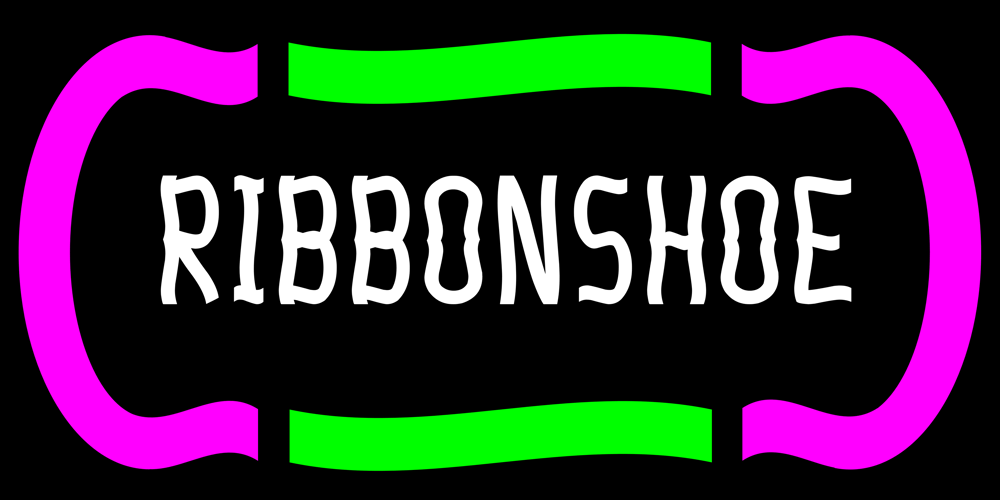
Ribbonshoe Font Family was designed by Mark Charles and published by Curvature Creations. Ribbonshoe contains 1 styles and family package options. My font Ribbonshoe is created with Power Point shapes Block Arc and Punched Tape and they resemble ribbons and horse shoes. This font is very unique, stylish and very attractive to the eye.